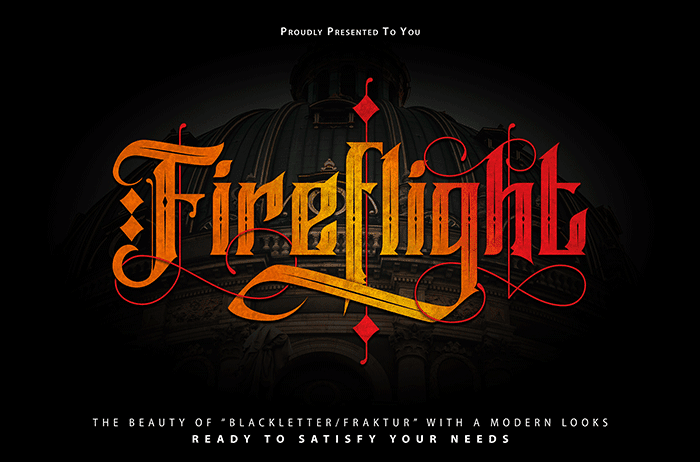
FireFlight Blackletter Font
Fireflight is a bold and original blackletter font with a unique style. It will turn any design idea into an eye-catcher! Thanks to Vunira Studio for sharing this font. Take a look at this portfolio for more of his stunning fonts.